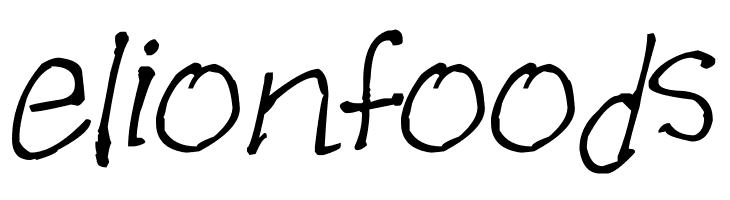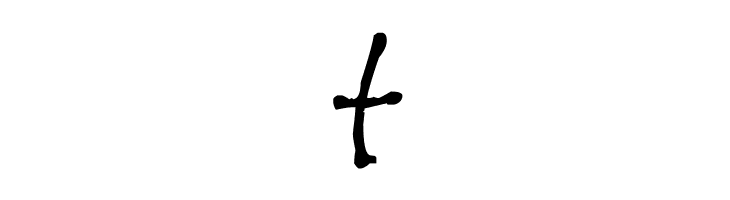
A playful, rounded font with smooth curves and a friendly appearance.
A bold, playful font with a textured, fluffy appearance.
A bold, textured font with rugged, organic patterns and jagged edges.
A bold, rhythmic font with a tribal-inspired design and thick, rounded strokes.
A bold, geometric font with a futuristic and segmented design.
A bold, geometric font with rounded, overlapping shapes for a modern, artistic look.
A playful handwritten font with a casual and friendly style.
An elegant, flowing script font with whimsical, decorative elements.
An elegant script font with flowing, graceful curves and dynamic slant.
A bold, playful script font with fluid, interconnected characters.
A modern, geometric font with clean lines and angular shapes, ideal for digital displays.
A bold, semi-condensed vintage font with a distressed, textured appearance.
A playful, handwritten font with irregular strokes and an organic feel.
A modern, artistic font with elongated, geometric strokes and a futuristic vibe.
A bold, hand-drawn font with a rough, textured appearance.
A playful, casual handwritten font with uneven strokes and a lively feel.
A bold, futuristic font with sharp, angular edges and a geometric structure.
A modern, elegant font with flowing uppercase and structured lowercase letters.
An elegant, whimsical font with flowing, cursive-like strokes and delicate lines.
A decorative symbol set focused on diverse bracket and star designs.
A playful set of hand-drawn dingbat icons featuring everyday objects and symbols.
A playful, hand-drawn font with smooth, flowing lines and a whimsical style.
A tall, slender, and whimsical font with artistic flair.
A playful, hand-drawn font with rounded edges and a whimsical style.
A refined and elegant font with clean lines and a modern aesthetic.
An elegant and sophisticated serif font with a blend of classic and modern elements.
A playful, modern font with rounded and angular elements.
A playful, modern font with rounded, whimsical characters.